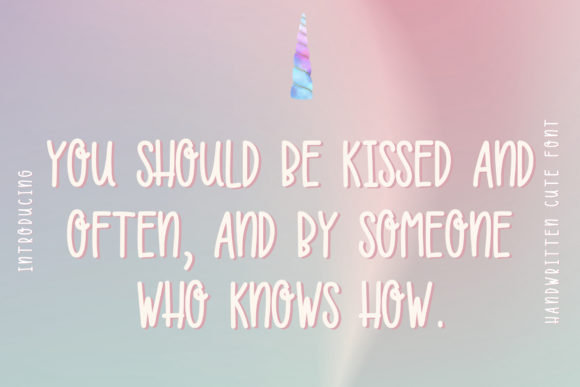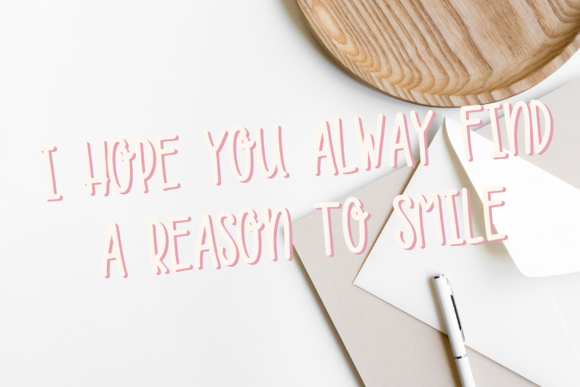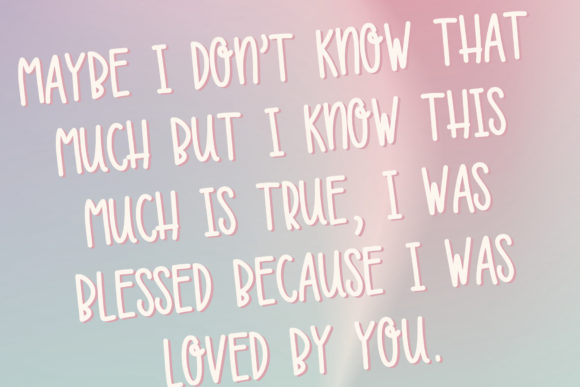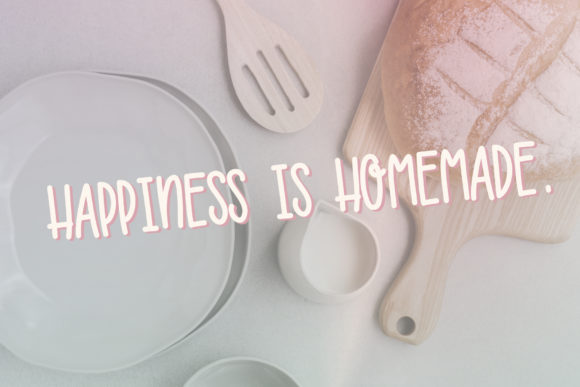
Unicorn Lover Font
About Unicorn Lover Font
Unicorn Lover is a sweet, dreamy and thin handwritten font. Modern and playful, this font will brighten up each of your designs.